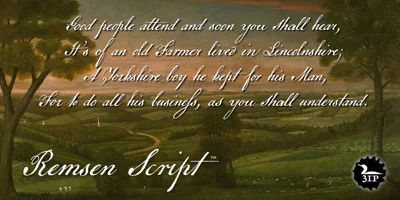
Remsen Script
Remsen Script Font
If you want your designs to feel like a handwritten love letter from the digital age, Remsen Script Font is your go-to font. With its elegant, flowing script style, this font adds a personal and sophisticated touch to wedding invitations, branding, social media posts, and any creative project that needs that classy handwritten vibe.
Designed to evoke warmth and creativity, Remsen Script Font’s smooth strokes mimic authentic handwriting, giving your projects a unique and heartfelt personality. Whether you’re working on greeting cards, logos, or packaging, this font makes your message stand out with grace and style.
Don’t be fooled by its delicate appearance—Remsen Script Font is versatile and works beautifully across various platforms and media. Its artistic flair instantly upgrades your visual storytelling, ensuring your content leaves a lasting impression.
In summary, Remsen Script Font invites you to experience a premium script font free for testing, with the option to purchase for commercial endeavors. Add this stylish script to your font library and watch your designs come alive with elegance and charm.